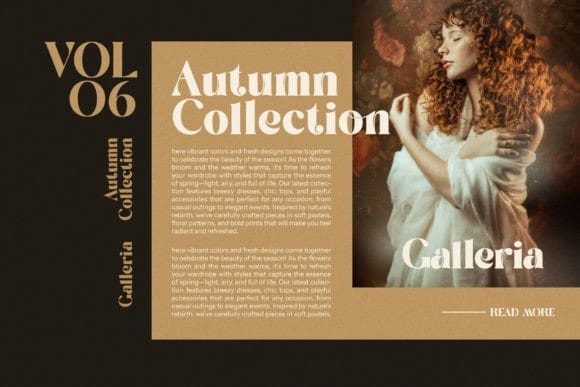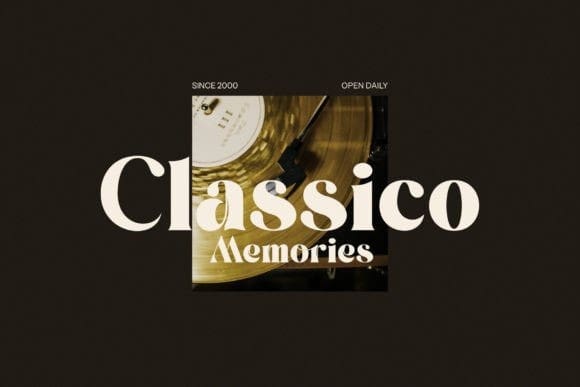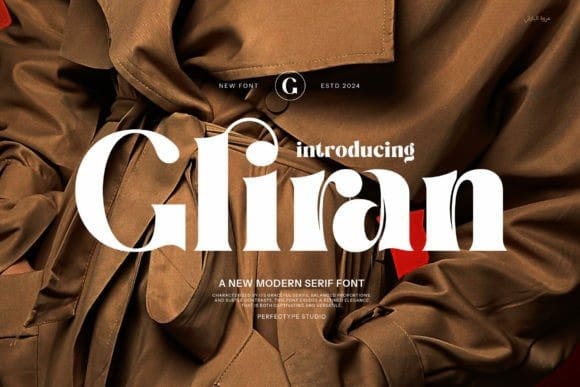
Gliran Font
Gliran Font is a very elegant and classy font for any branding and logo design. This serif font is created with elegance and class in mind and is perfect for all your design needs. This font comes with many beautiful and unique ligatures and alternates options. This font is perfect for your various needs such as branding projects, logos, social media posts, advertisements, labels, product packaging, photography, wedding designs, watermarks, invitations, stationery and any project that is done at a high price. legibility.